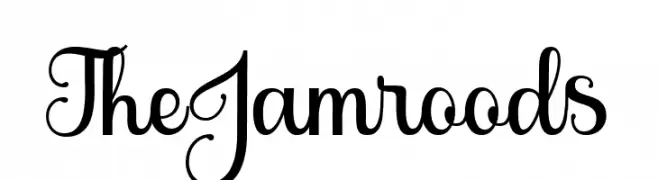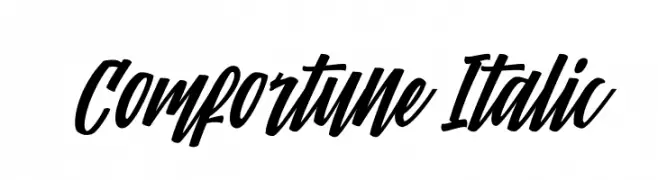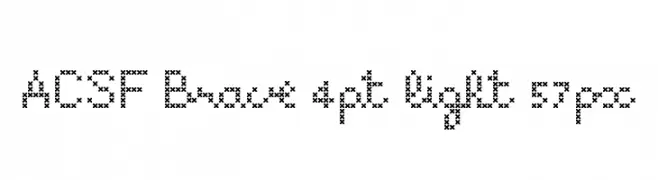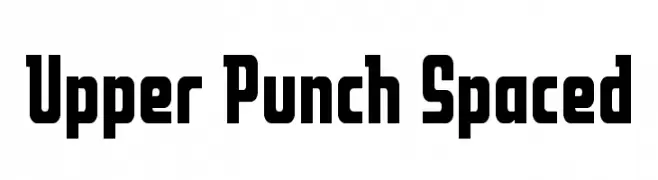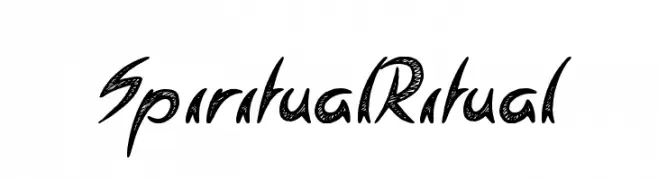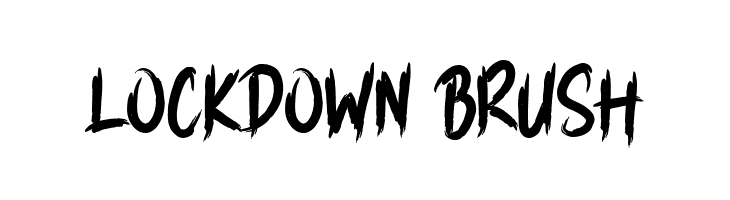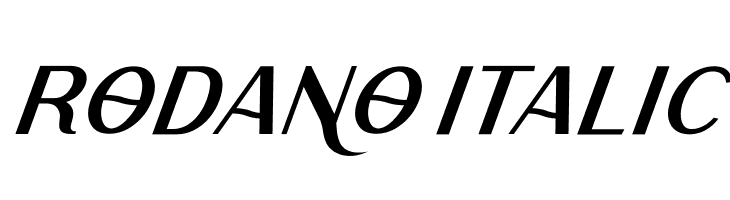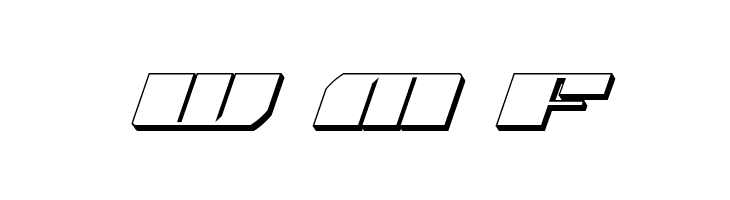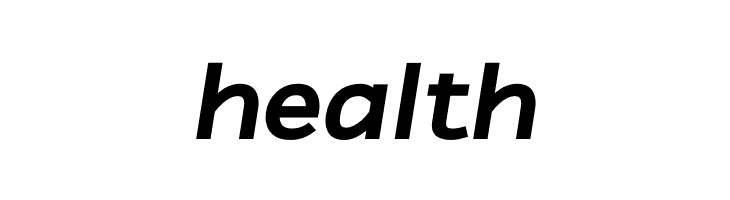
A bold, playful script font with a smooth, handwritten style.
A modern-vintage font with tall, narrow letterforms and artistic flair.
A decorative cursive font with elegant loops and swirls.
A bold, italic script font with a dynamic and hand-drawn style.
A decorative font with a cross-stitch pattern, offering a handcrafted and artistic look.
A fluid and elegant script font with a natural handwriting style.
A bold, geometric font with a modern and industrial style.
A bold, energetic script font with dynamic strokes and a textured appearance.
A decorative and modern font with whimsical uppercase and straightforward lowercase letters.
A modern, geometric, semi-bold, condensed italic font with a sleek, technical appearance.